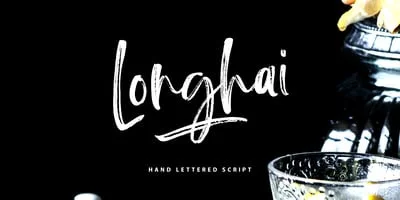
BrushType Longhand Font
BrushType Longhand Font is perfect for handwritten quotes, personal journals, artistic posters, craft project labels, social media graphics, greeting cards, wedding invitations, and boutique branding designs.
What makes BrushType Longhand Font exciting is its authentic handwritten character that captures the natural flow and spontaneity of genuine brush lettering. This captivating typeface features organic strokes with varying thickness and texture, creating an intimate, personal touch that brings warmth and authenticity to any design project requiring human connection.
The BrushType Longhand Font family includes regular and bold variations, plus alternative characters and ligatures that enhance the handwritten aesthetic with natural letter connections and stylistic flourishes.
This remarkable typeface delivers exceptional artistic appeal while maintaining clear readability, making BrushType Longhand Font an essential choice for designers seeking authentic handcrafted aesthetics. The font's organic nature makes it ideal for brands wanting to convey personality and approachability in their communications. Artisan businesses and creative entrepreneurs particularly value its ability to communicate craftsmanship and personal attention instantly. The thoughtfully designed letterforms ensure legibility across all applications, from intimate packaging details to bold promotional materials. Whether you're creating heartfelt personal stationery or developing authentic brand identities, this font provides the perfect combination of artistic expression and professional quality. Creative professionals consistently choose this typeface for projects requiring that ideal balance of handmade charm and contemporary design standards.